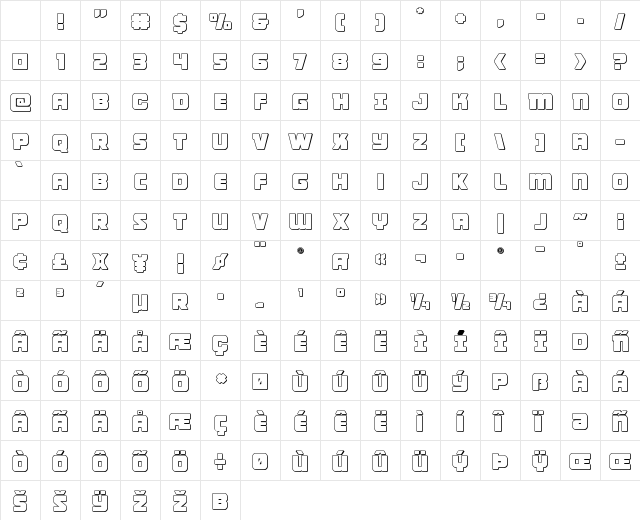
Victory Comics Outline has an approachable, lighthearted character - its loose, expressive forms are well-suited to children's content, casual branding, and fun-first design.
Font Pairing: Pairs well with a rounded or humanist sans for body copy, maintaining the friendly tone without relying on Victory Comics Outline to carry extended reading.
Pro Tip: Use Victory Comics Outline at larger display sizes where its expressive character can land. Pair with a clean, simple sans for body copy to maintain readability.